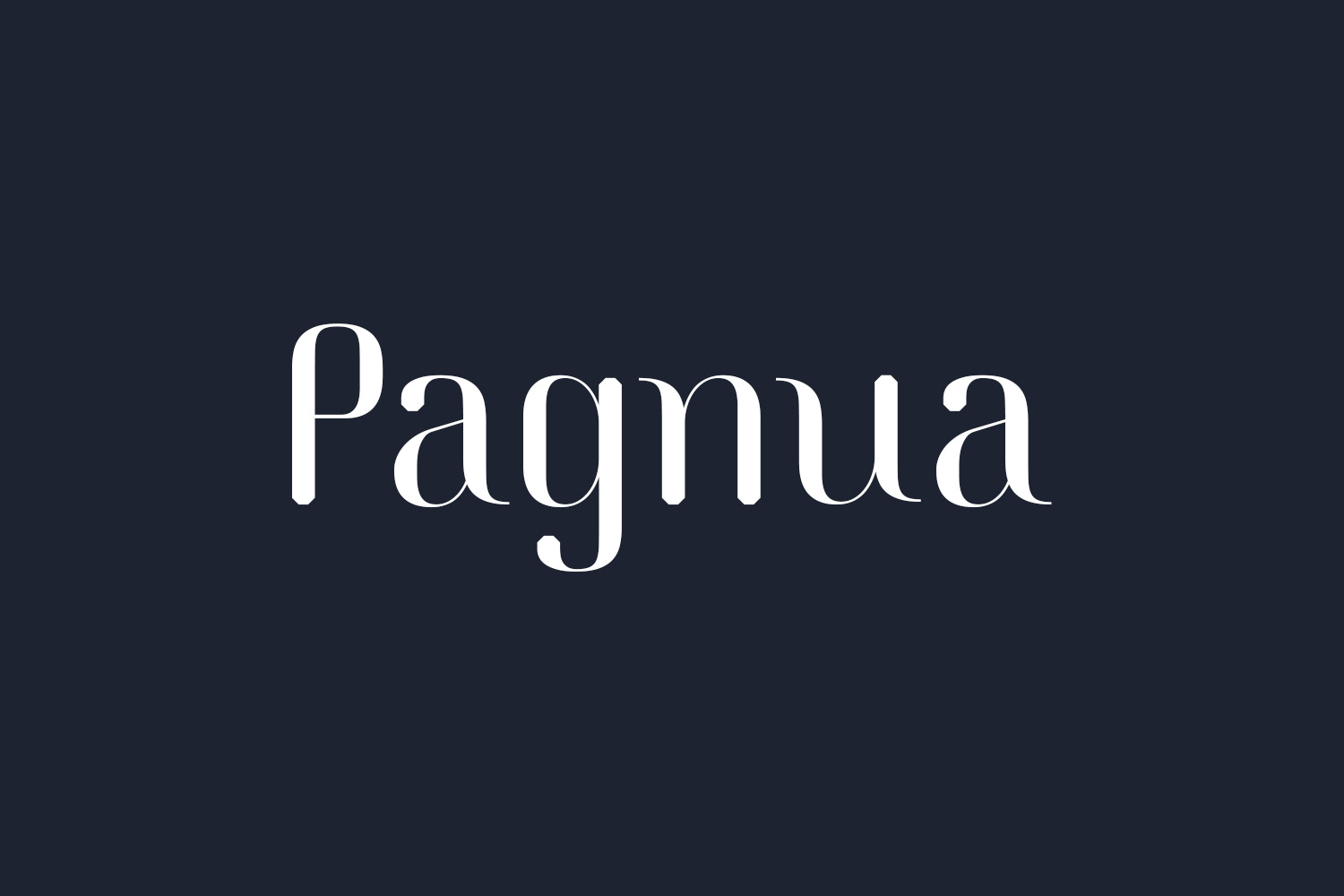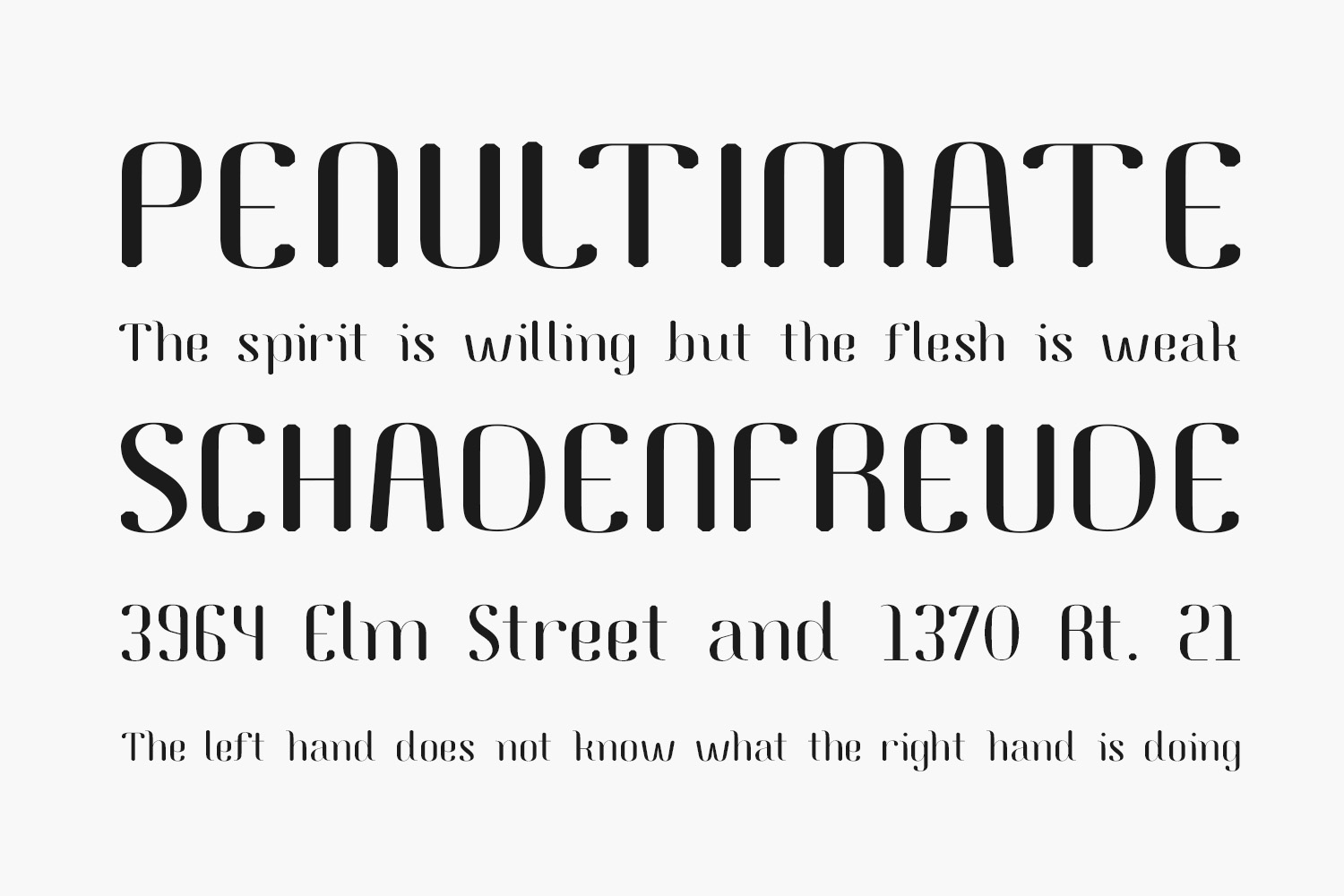
Pagnua Free Font is a cool and adaptable sans serif font. Whatever the topic, this font will be a wonderful asset to your font library, as it has the potential to enhance any creation. Pagnua Free Font was designed by Lerima and is free for personal use only. Please purchase the full version for commercial use.